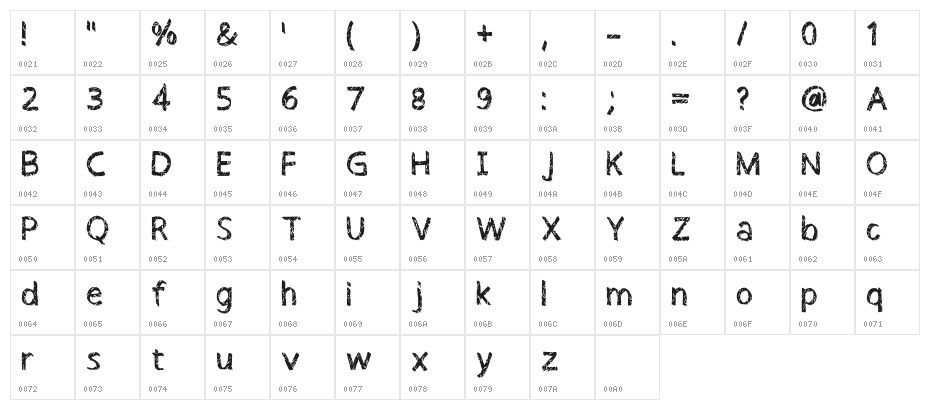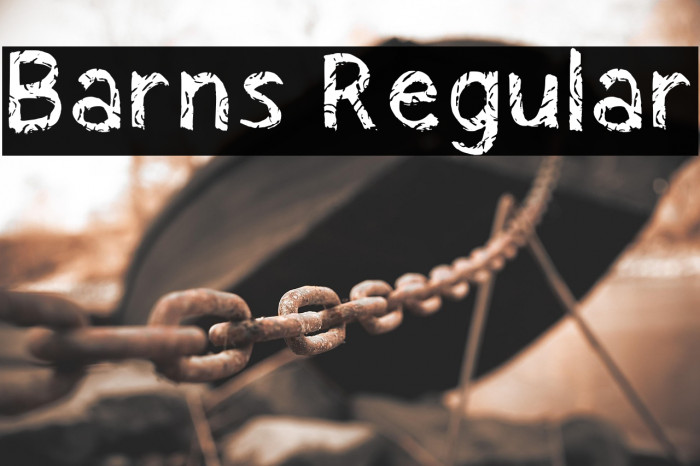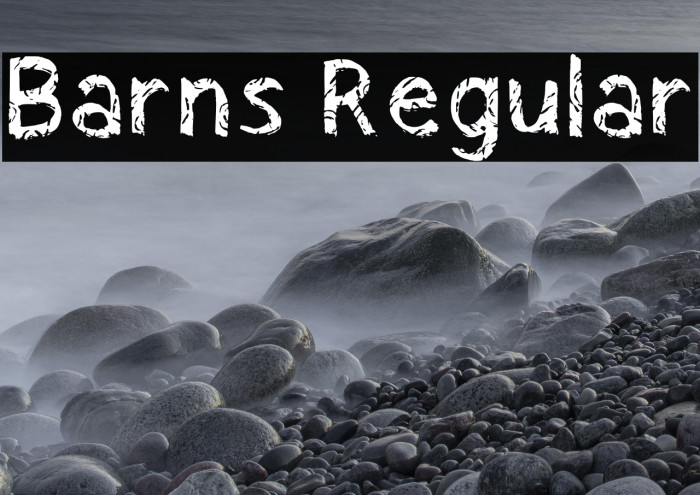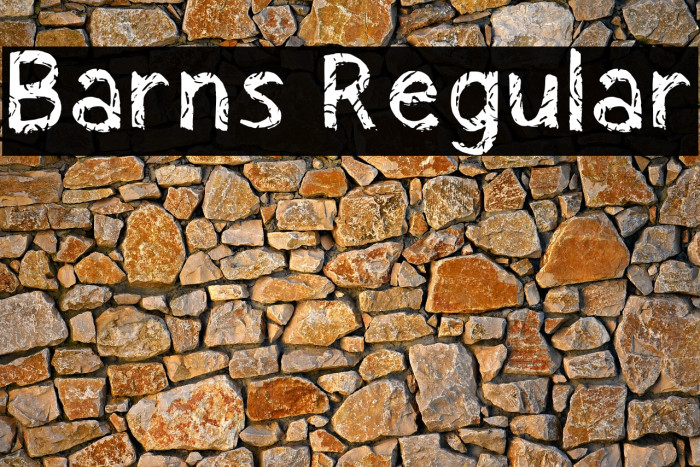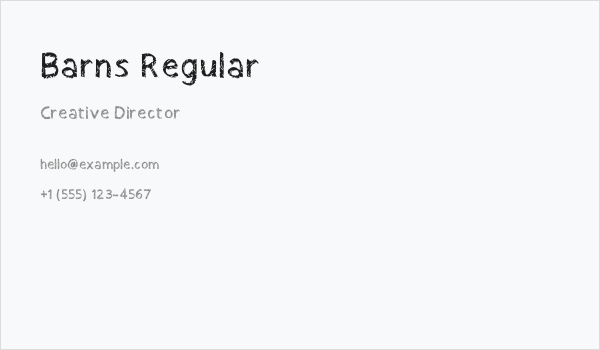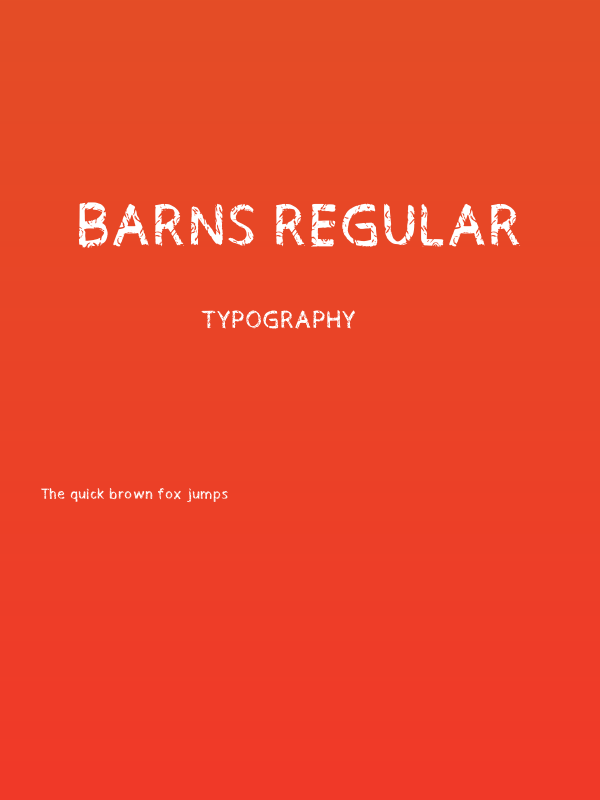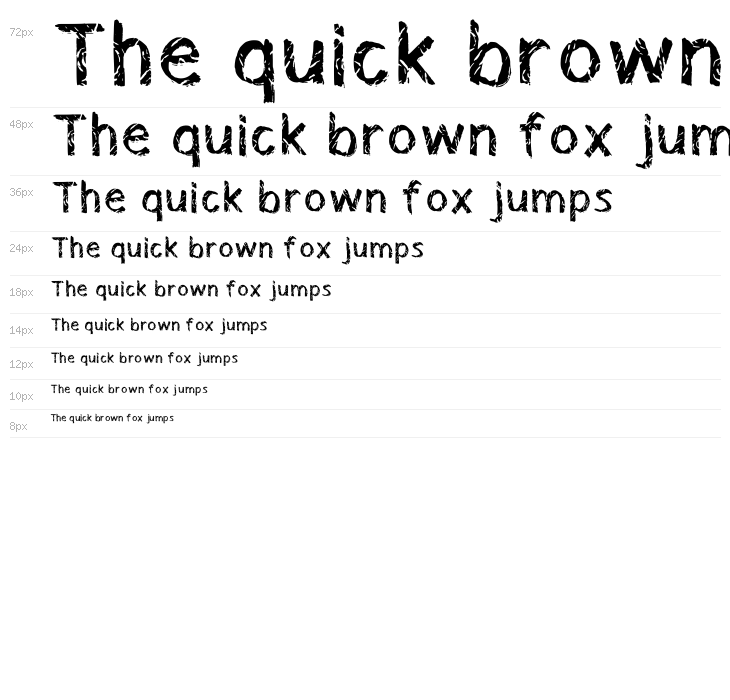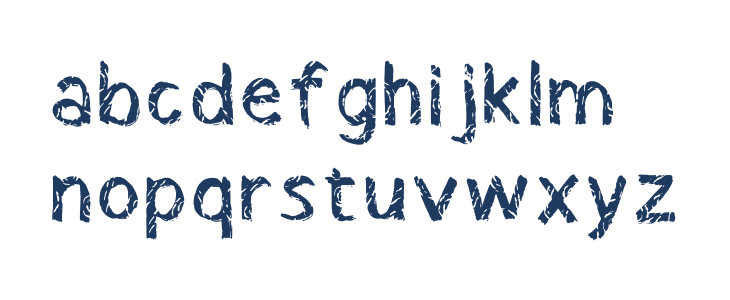
Barns Regular Font
Barns Regular Description
This font features a rugged, distressed appearance with a textured, grunge-like finish. The characters are bold and impactful, with irregular edges that give a sense of movement and energy. The uppercase and lowercase letters maintain a consistent style, creating a cohesive look. Numbers and special characters share the same distressed aesthetic, making them suitable for designs that require a raw, edgy feel. The font's unique style is perfect for projects that aim to convey a sense of rebellion or nonconformity.